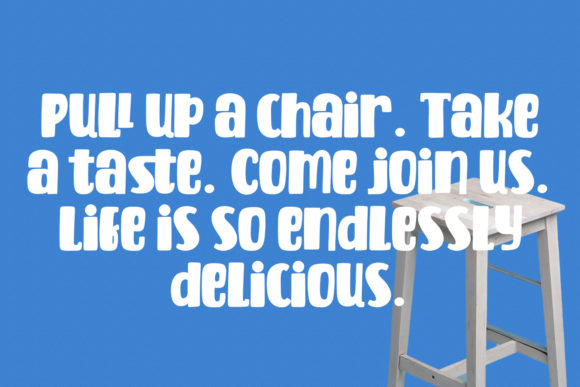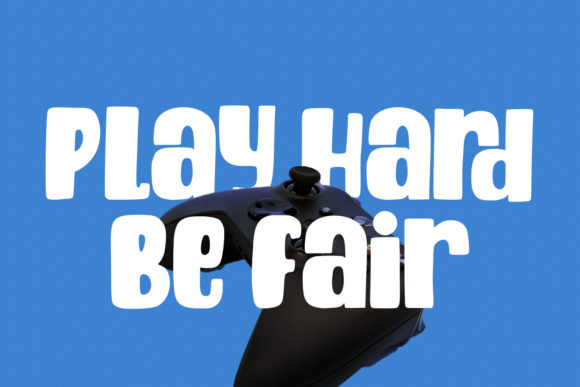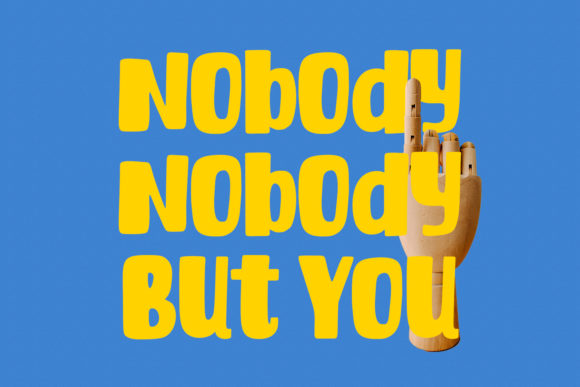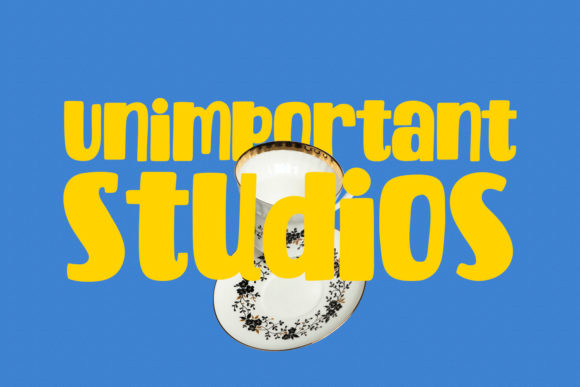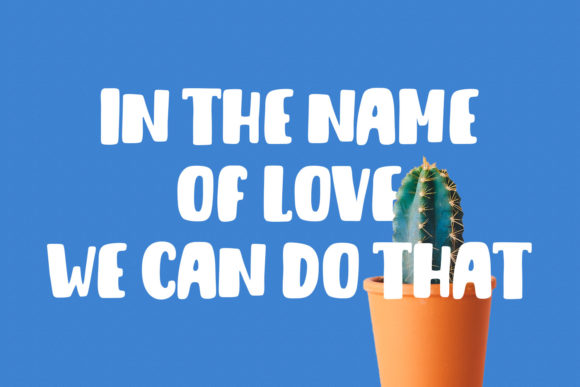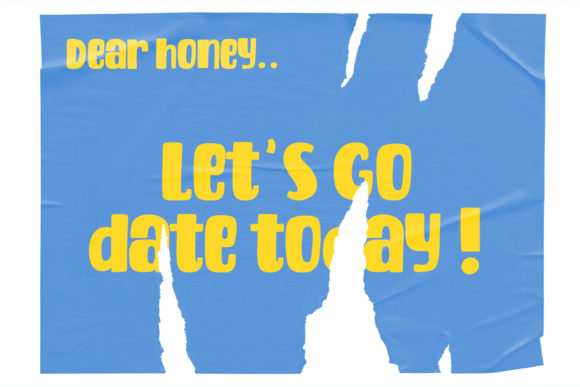
Introducing Fairdate Font: The Perfect Choice for Fun and Creative Projects
Are you a designer, crafter, or DIY enthusiast looking for a font that embodies playfulness and authenticity? Look no further than Fairdate Font, a fun, retro-styled, and cute display font that’s perfect for any children activity or school project. In this article, we’ll dive into the world of Fairdate Font, exploring its features, benefits, and uses, and why it’s a must-have for anyone looking to add a touch of whimsy to their designs.
What is Fairdate Font?
Fairdate Font is a display font that’s designed to bring a sense of nostalgia and playfulness to your designs. With its retro-style aesthetic, this font is reminiscent of the fun and carefree days of childhood. Its cute and charming appearance makes it perfect for projects that require a touch of whimsy, such as children’s activity sheets, school projects, and craft designs.
Key Features of Fairdate Font
- Fun and Playful Design: Fairdate Font features a unique and playful design that’s sure to capture the attention of your audience.
- Retro-Styled Aesthetic: This font’s retro-style aesthetic gives it a nostalgic feel that’s perfect for designs that require a vintage touch.
- Cute and Charming Appearance: Fairdate Font’s cute and charming appearance makes it perfect for projects that require a touch of whimsy and playfulness.
- High-Quality Design: This font is designed with high-quality craftsmanship, ensuring that it looks great in any design.
Benefits of Using Fairdate Font
So, why choose Fairdate Font for your next project? Here are just a few benefits of using this amazing font:
- Adds a Touch of Whimsy: Fairdate Font adds a touch of whimsy and playfulness to your designs, making them more engaging and fun.
- Perfect for Children’s Projects: This font is perfect for children’s activity sheets, school projects, and other designs that require a fun and playful touch.
- Easy to Read: Despite its playful design, Fairdate Font is easy to read, making it perfect for designs that require a clear and legible font.
- Versatile: Fairdate Font can be used in a variety of designs, from digital projects to print materials.
Uses of Fairdate Font
So, what can you use Fairdate Font for? The possibilities are endless! Here are a few ideas to get you started:
- Children’s Activity Sheets: Fairdate Font is perfect for creating fun and engaging children’s activity sheets, such as coloring pages and puzzles.
- School Projects: This font is great for school projects that require a fun and playful touch, such as posters, presentations, and reports.
- Craft Designs: Fairdate Font can be used in craft designs, such as scrapbooking, card making, and DIY projects.
- Digital Projects: This font can be used in digital projects, such as social media graphics, blog posts, and website designs.
Tips for Using Fairdate Font
Here are a few tips for using Fairdate Font in your designs:
- Use it Sparingly: Fairdate Font is a display font, so it’s best to use it sparingly to add emphasis and interest to your designs.
- Pair it with Other Fonts: This font pairs well with other fonts, such as sans-serif fonts, to create a fun and playful contrast.
- Experiment with Colors: Fairdate Font looks great in a variety of colors, so don’t be afraid to experiment and find the perfect color for your design.
In conclusion, Fairdate Font is a fun, retro-styled, and cute display font that’s perfect for any children activity or school project. With its playful design, high-quality craftsmanship, and versatility, this font is a must-have for designers, crafters, and DIY enthusiasts. Whether you’re creating digital projects or print materials, Fairdate Font is sure to add a touch of whimsy and playfulness to your designs.